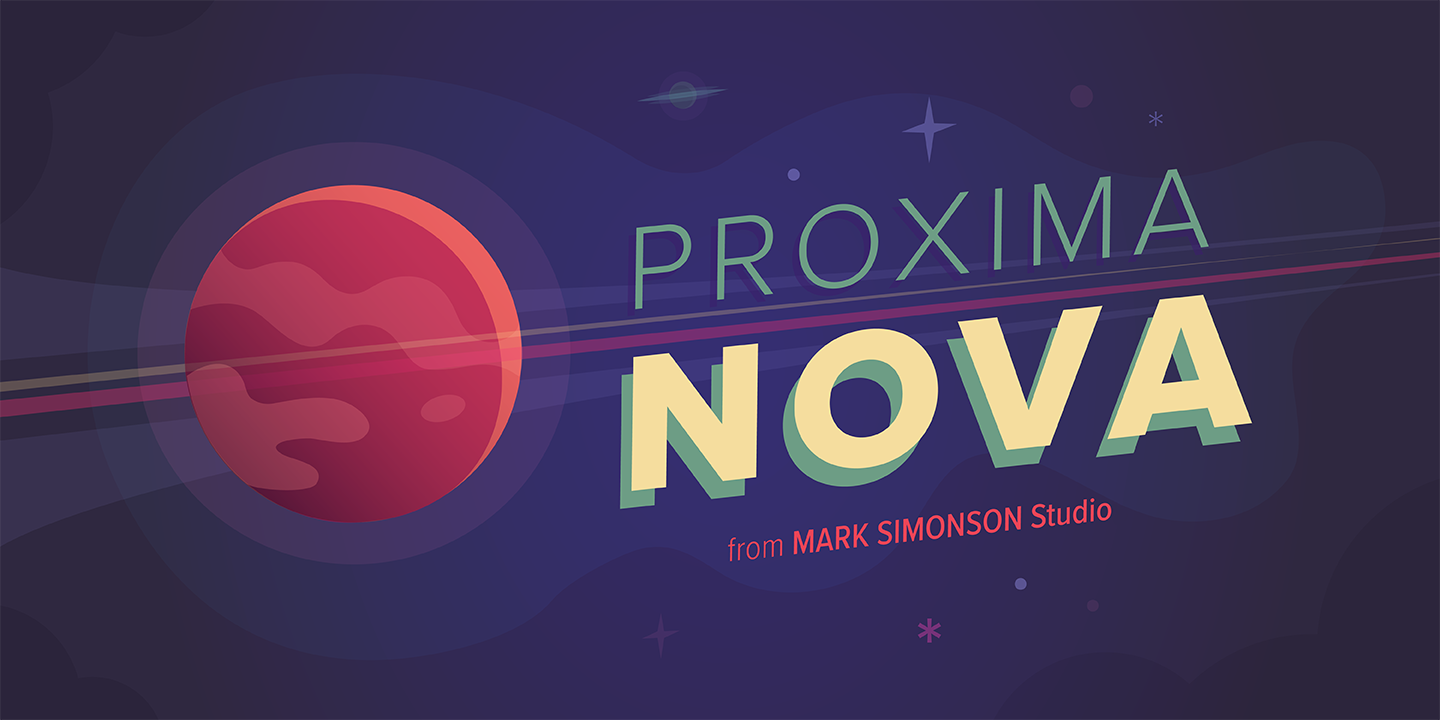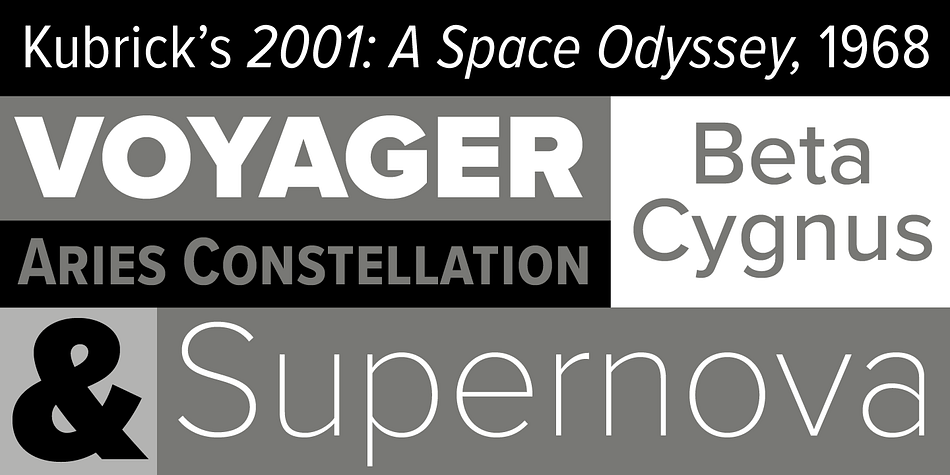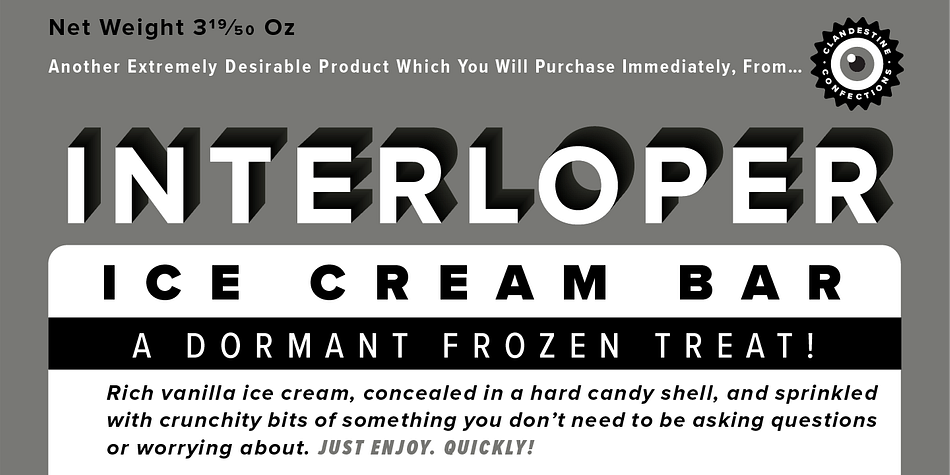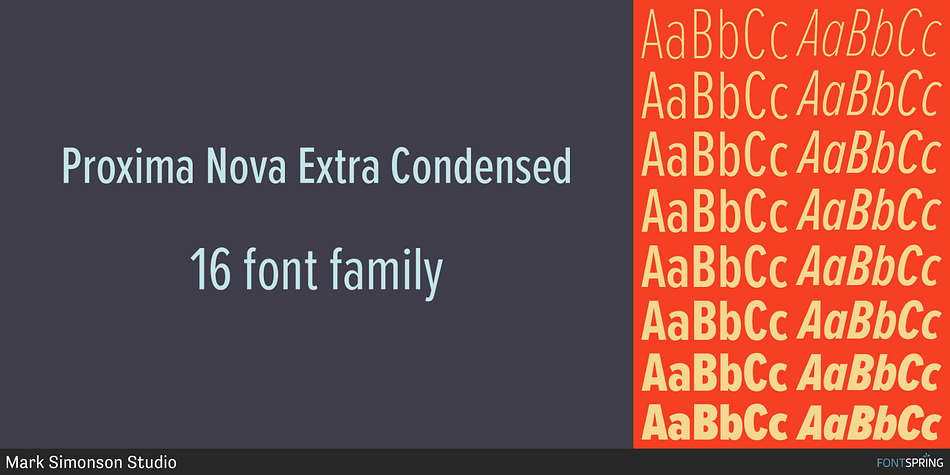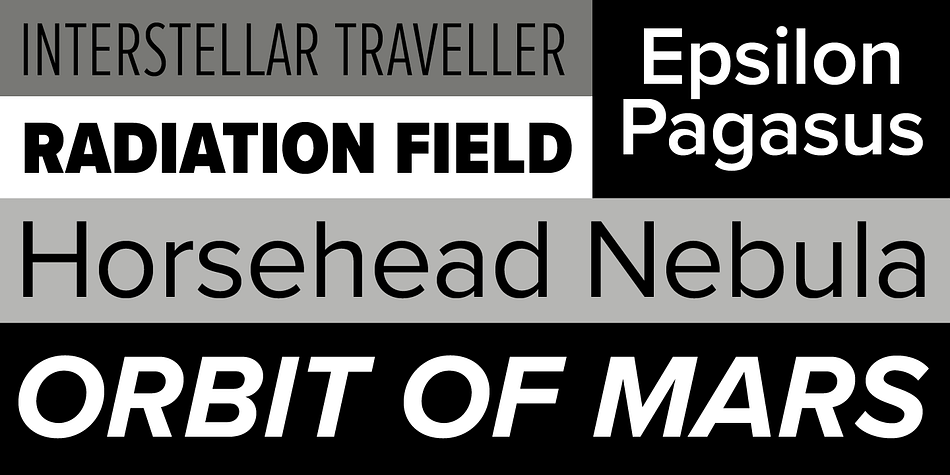
Proxima Nova Super Family
Designed by Mark Simonson, Proxima Nova is a sans serif font collection published by Mark Simonson Studio.
The Proxima Nova family is a complete reworking of Proxima Sans (1994). The original six fonts (three weights with italics) have been expanded to 48 full-featured OpenType fonts. There are three widths: Proxima Nova, Proxima Nova Condensed, and Proxima Nova Extra Condensed. Each width consists of 16 fonts—eight weights with matching italics.
Stylistically, Proxima Nova straddles the gap between typefaces like Futura and Akzidenz Grotesk. The result is a hybrid combining humanistic proportions with a somewhat geometric appearance.
Feature Summary:
8 weights: Thin, Light, Regular, Medium, Semibold, Bold, Extrabold, and Black
3 widths: Normal, Condensed, and Extra Condensed
Matching italics for all weights and widths
Matching small caps for all weights and widths*